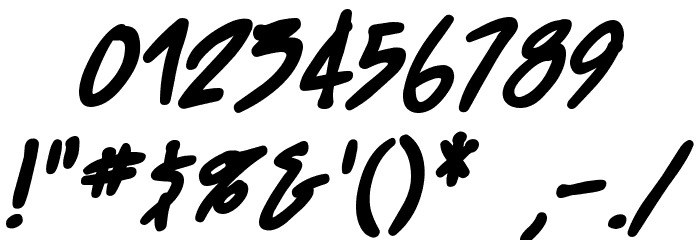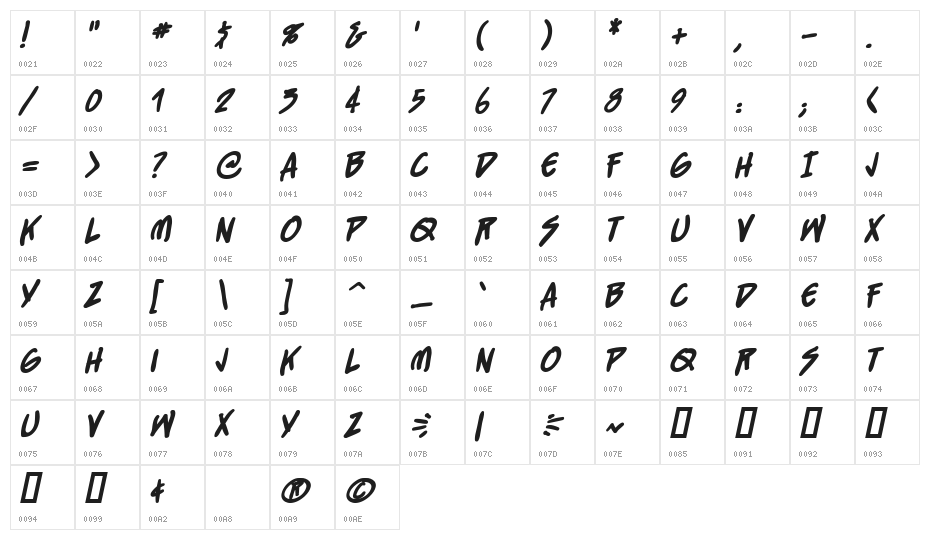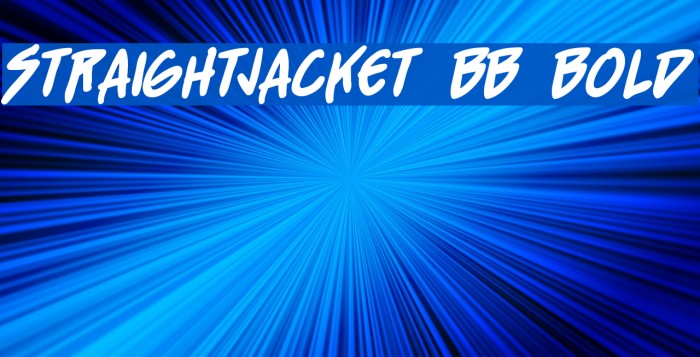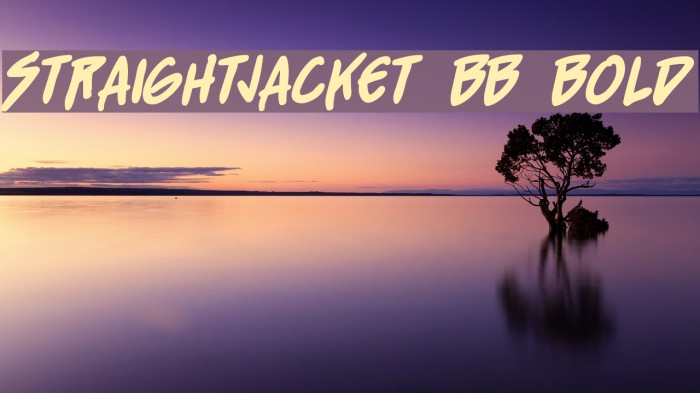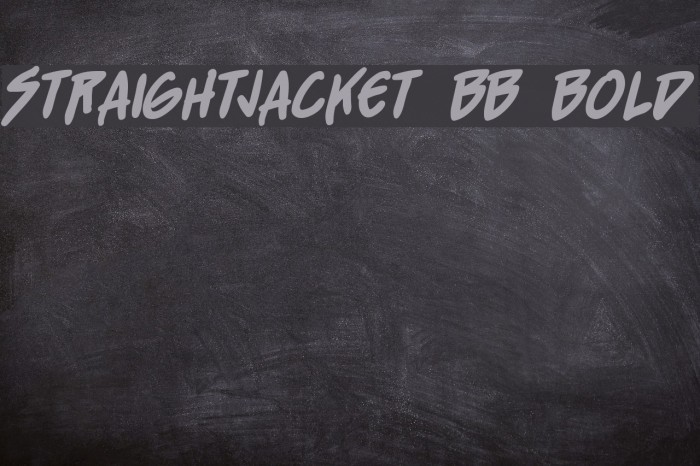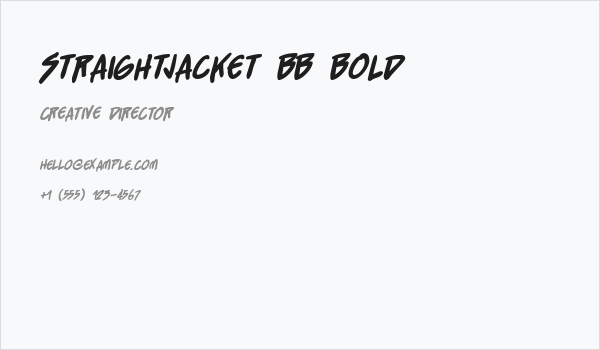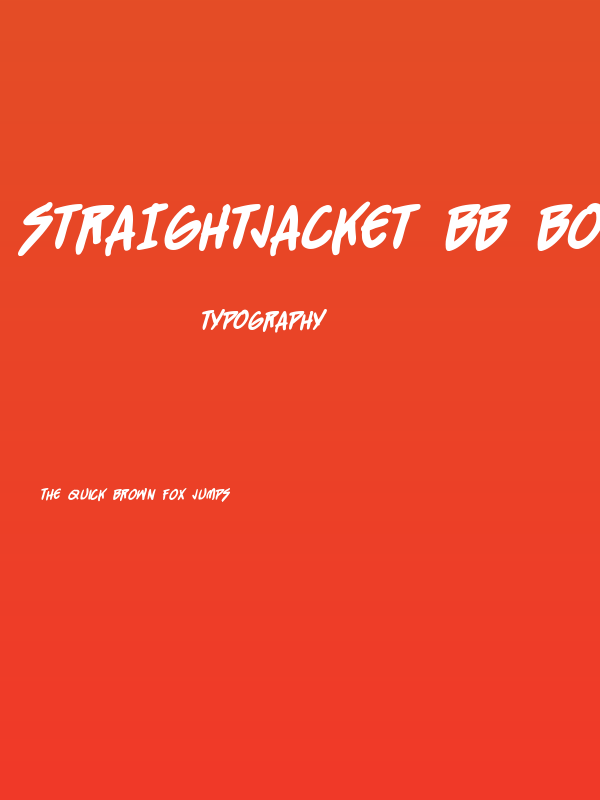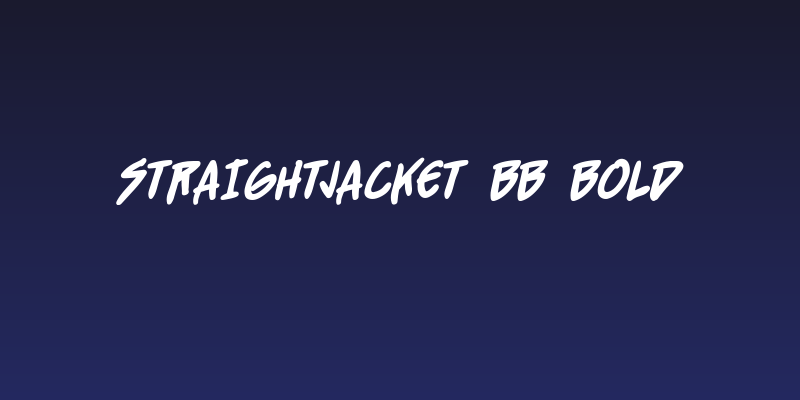
StraightJacket BB Bold Font
StraightJacket BB Bold Description
This bold, handwritten style font exudes a sense of energy and dynamism. The letters are crafted with a thick, consistent stroke that gives them a strong presence on the page. Each character is slightly slanted, adding a sense of motion and fluidity. The uppercase and lowercase letters maintain a cohesive style, with rounded edges and a playful, informal appearance. The numbers and special characters are equally bold and expressive, ensuring they stand out in any design. This font is perfect for projects that require a touch of personality and flair.